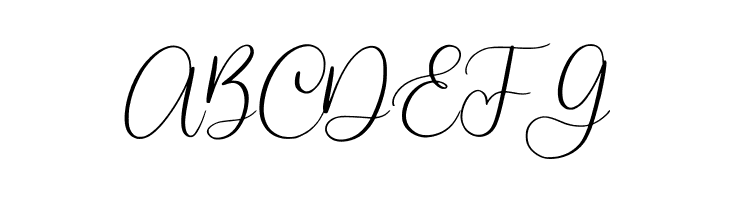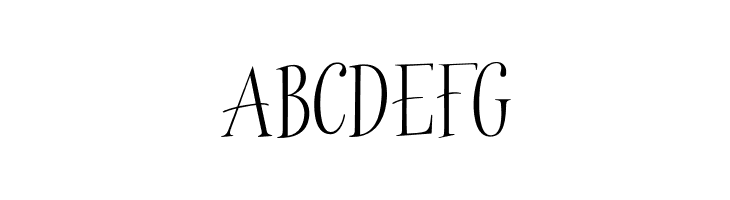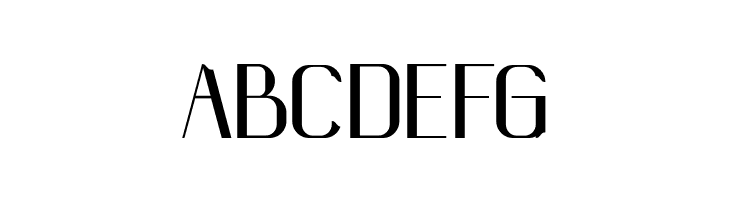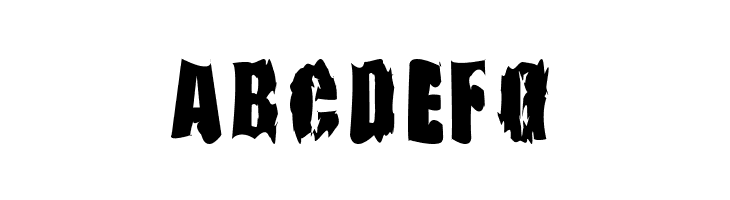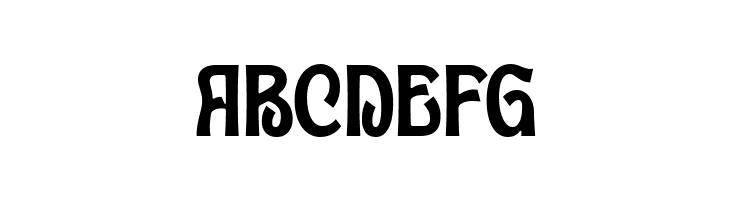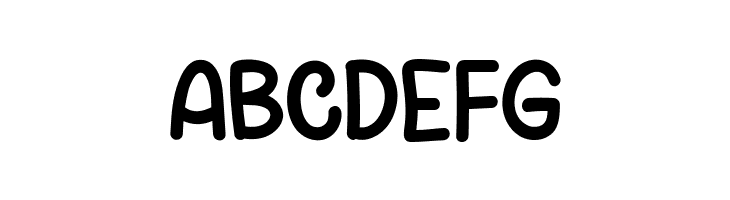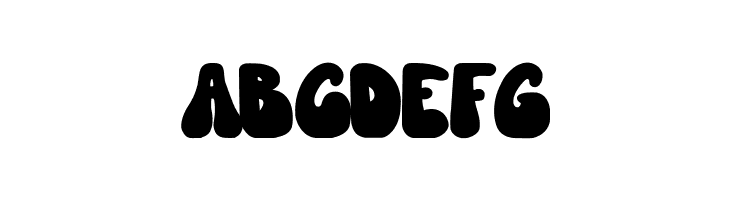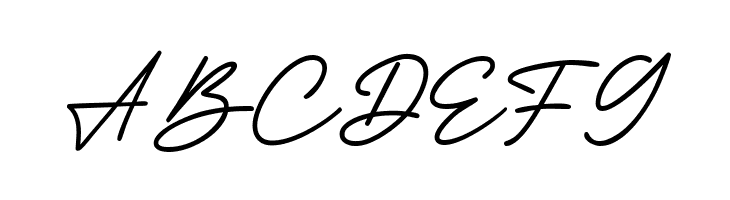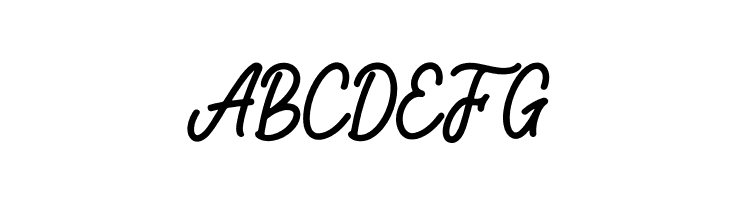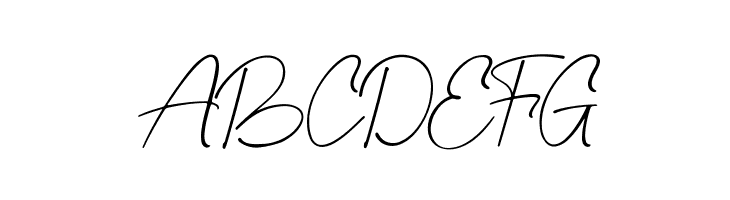
A bold, serif font with thick strokes and rounded serifs, offering a classic yet modern appeal.
An elegant, flowing script font with ornate and calligraphic elements.
An elegant script font with intricate loops and flourishes.
A bold, flowing script font with elegant, connected letters.
A futuristic, angular font with a geometric and sci-fi inspired design.
A playful and casual handwritten font with smooth, organic letterforms.
An elegant and flowing script font with ornate uppercase and readable lowercase letters.
An elegant and playful font with tall, slender letterforms and subtle curves.
A modern sans-serif font with clean lines and geometric structure.
A bold, playful font with a whimsical and decorative style.
A playful, rounded font with a bold and friendly style.
A bold, playful font with rounded, bubble-like characters.
A flowing, cursive script font with elegant, connected characters.
Bold, bubbly, cartoon-style display font with playful character.
A bold, futuristic font with geometric, blocky characters and rounded edges.
A lively and expressive handwritten font with fluid strokes.
A futuristic, geometric font with rounded edges and consistent stroke thickness.
A bold, geometric font with a stencil-like, industrial design.
A playful, handwritten font with a casual and dynamic style.
A flowing, cursive script font with elegant, connected characters.
An elegant, flowing script font with a refined, handwritten style.
Casual handwritten font with smooth curves.
A lively, hand-drawn script font with tall, narrow letters and playful loops.
A bold, expressive handwritten font with tall, narrow forms.